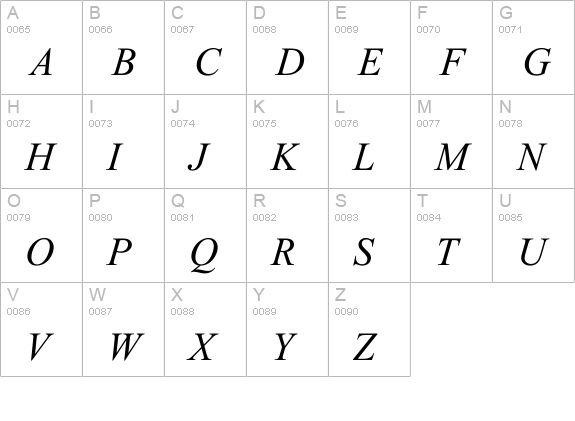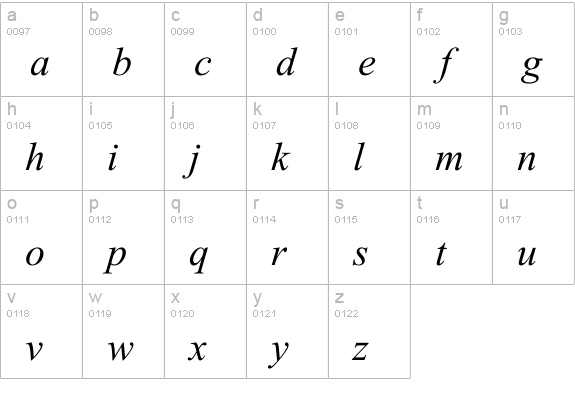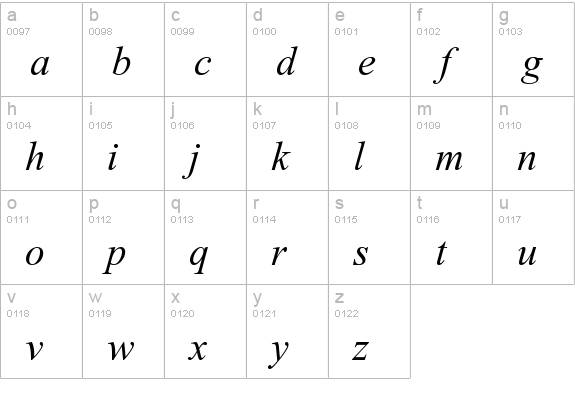
Globe Italic is a distinctive, italic variant in the Globe typeface family \xE2\x80\x94 well suited to design and typography projects.
Globe Italic font exudes a sense of elegance and sophistication with its sleek and stylish slanted design. The italicized letters add a touch of flair and creativity to any design project, making it perfect for headings, quotes, and other eye-catching elements. Its timeless appeal and versatility make it a popular choice for designers looking to add a touch of class to their work. And the best part? Globe Italic font is available for free download at FontsMarket.com, allowing you to enhance your projects without breaking the bank. Whether you're working on a digital design, print materials, or anything in between, Globe Italic font is sure to make a statement and elevate your work to the next level. Download it today and let your creativity shine with this elegant and freely available font.